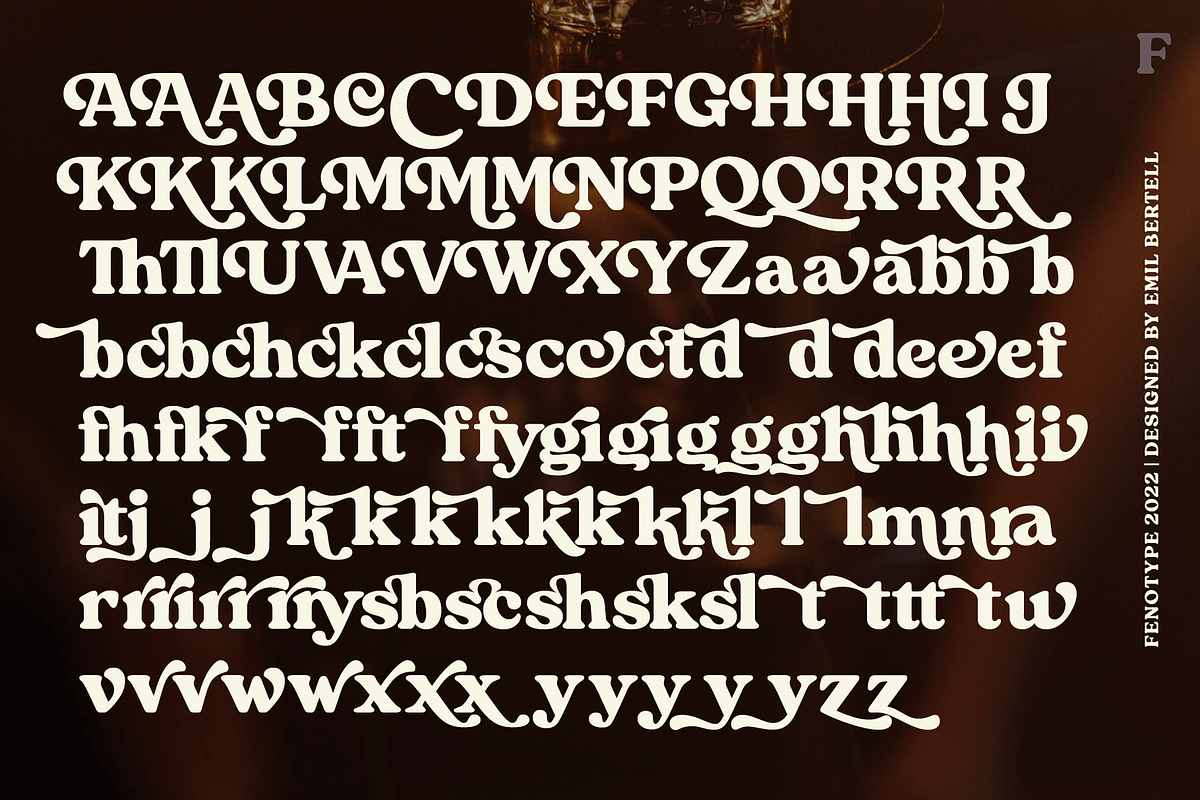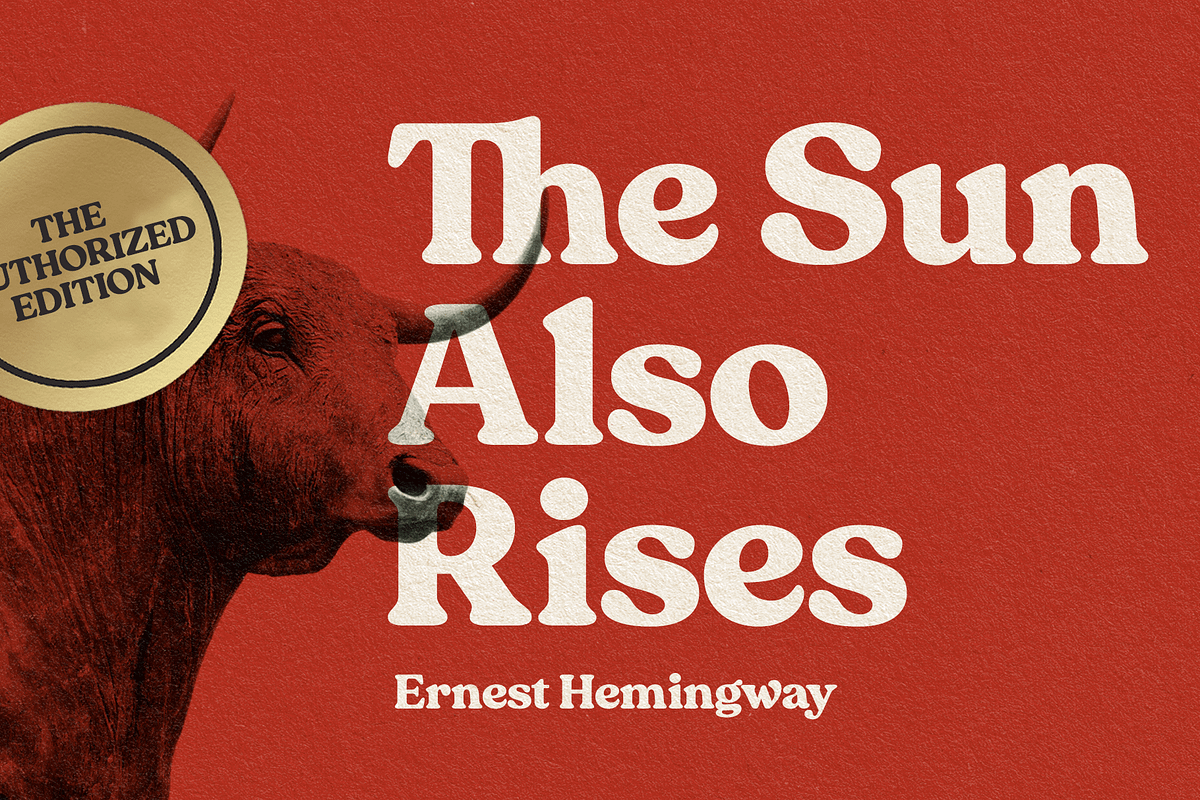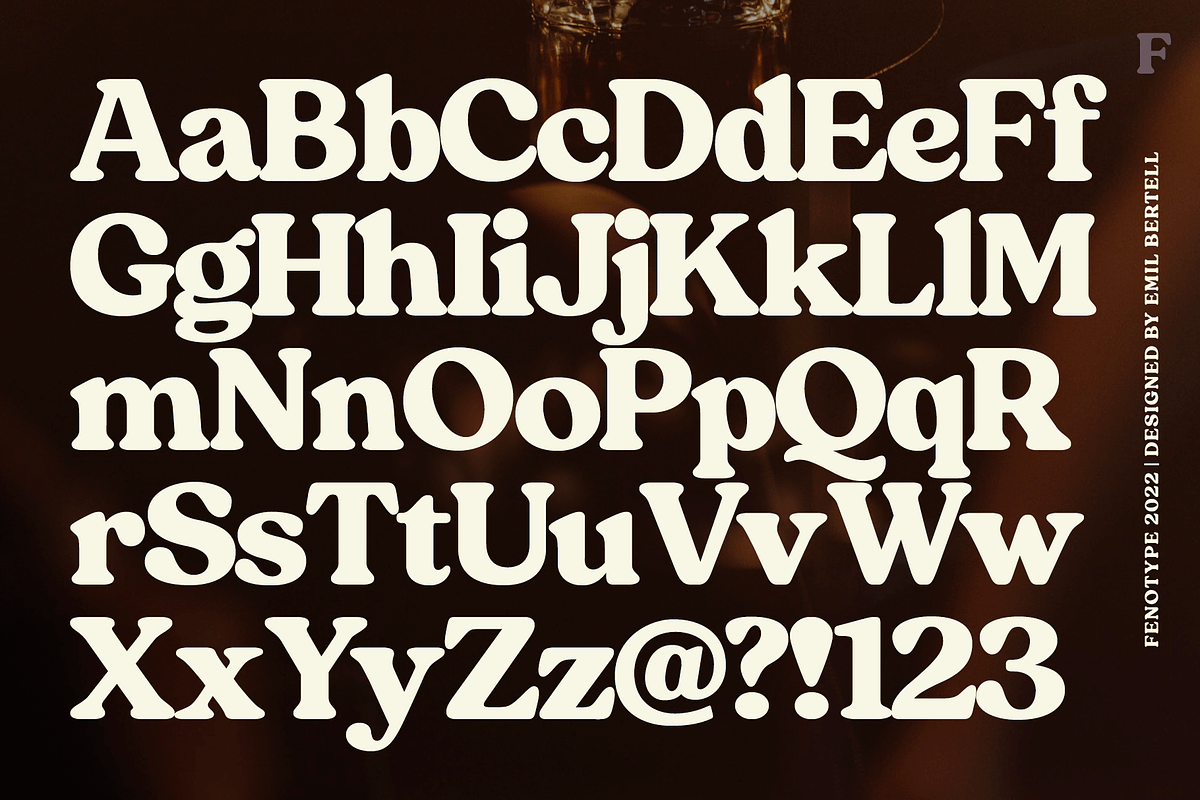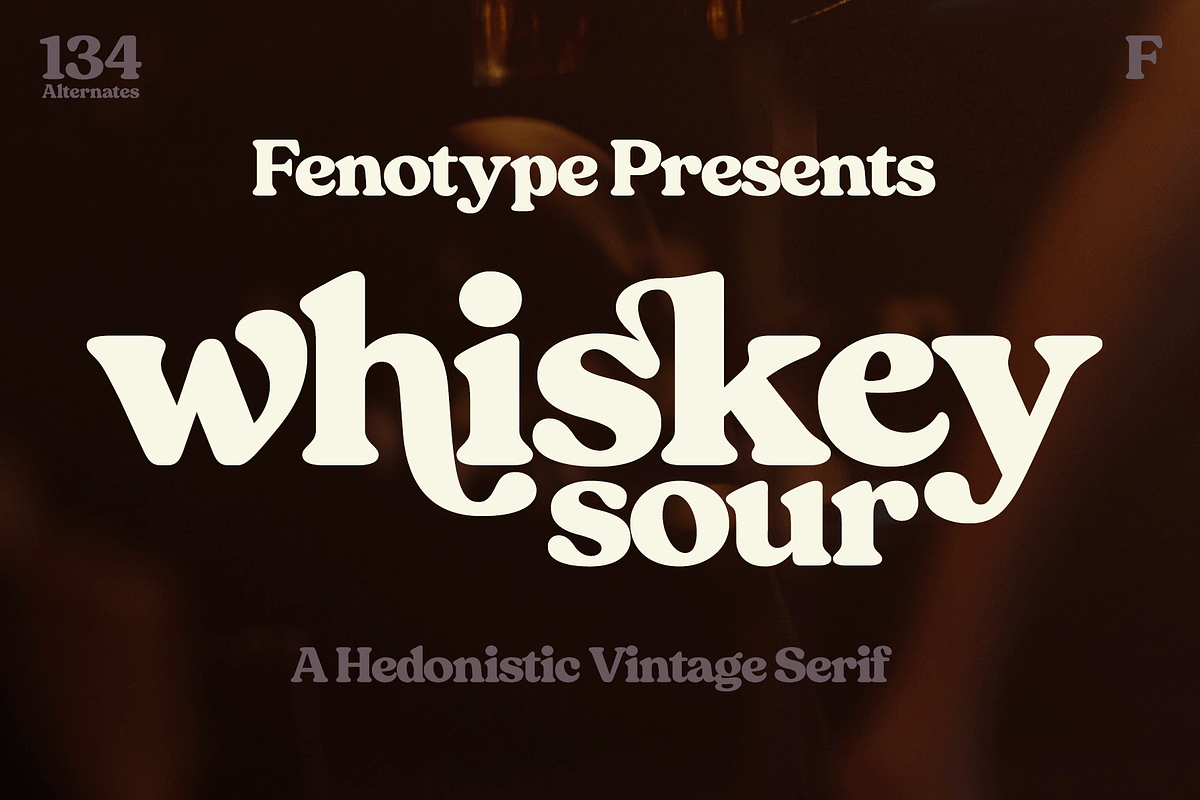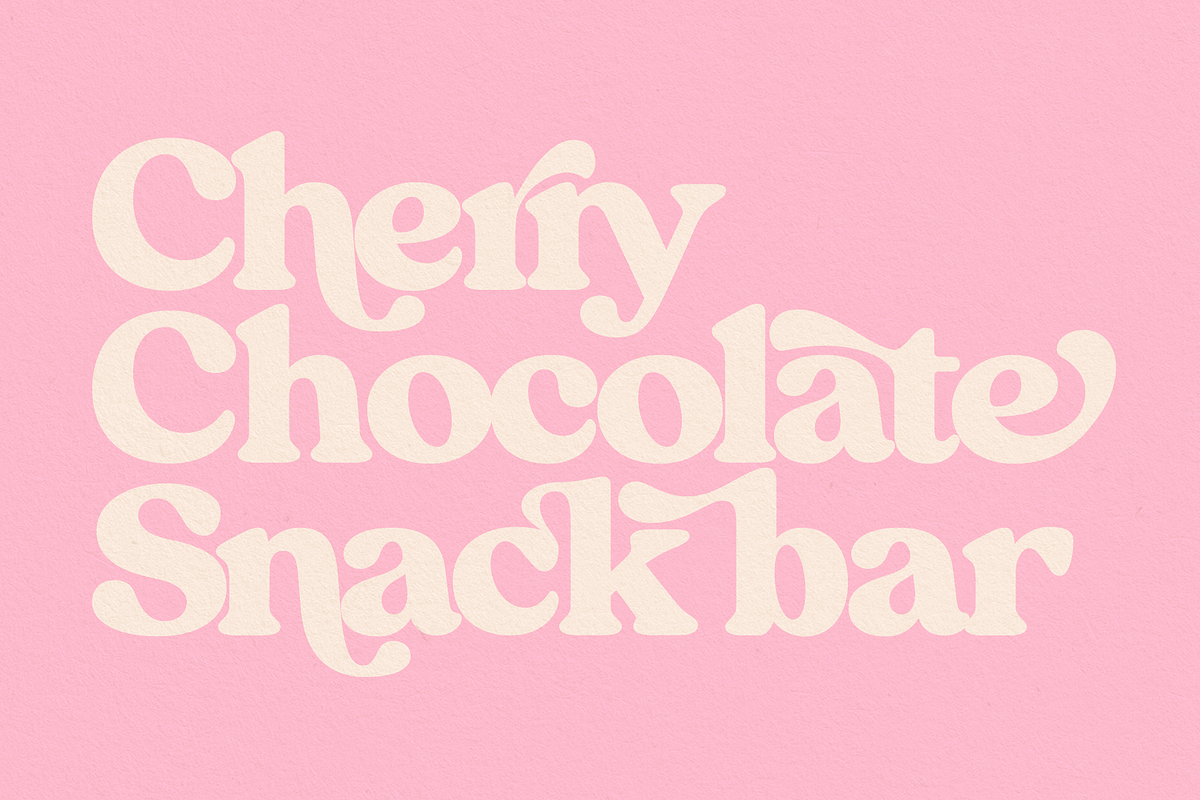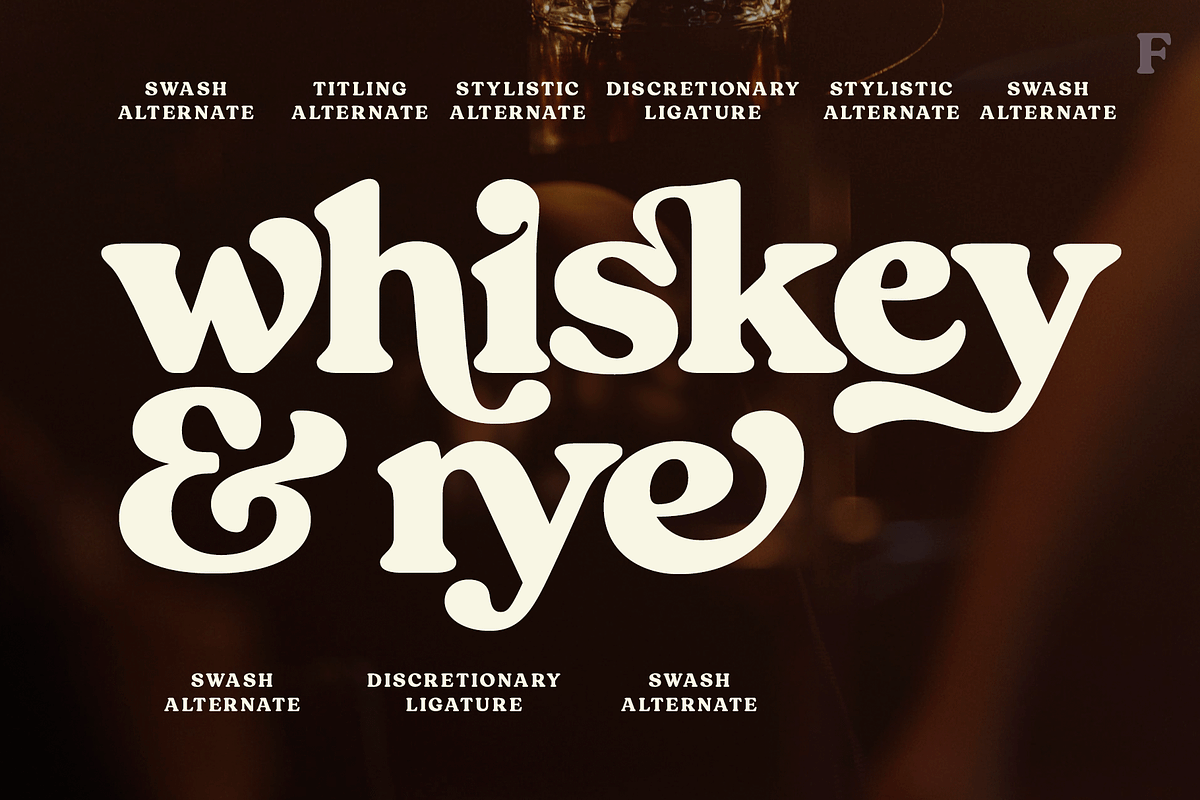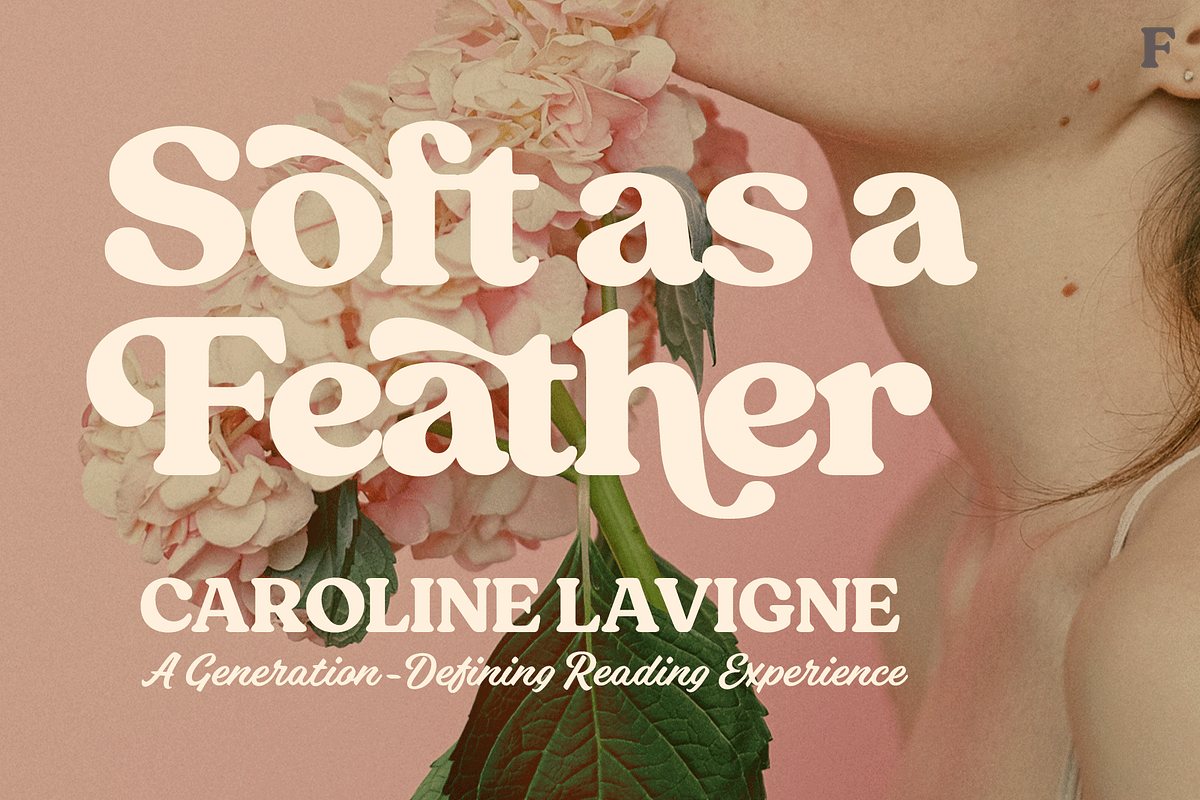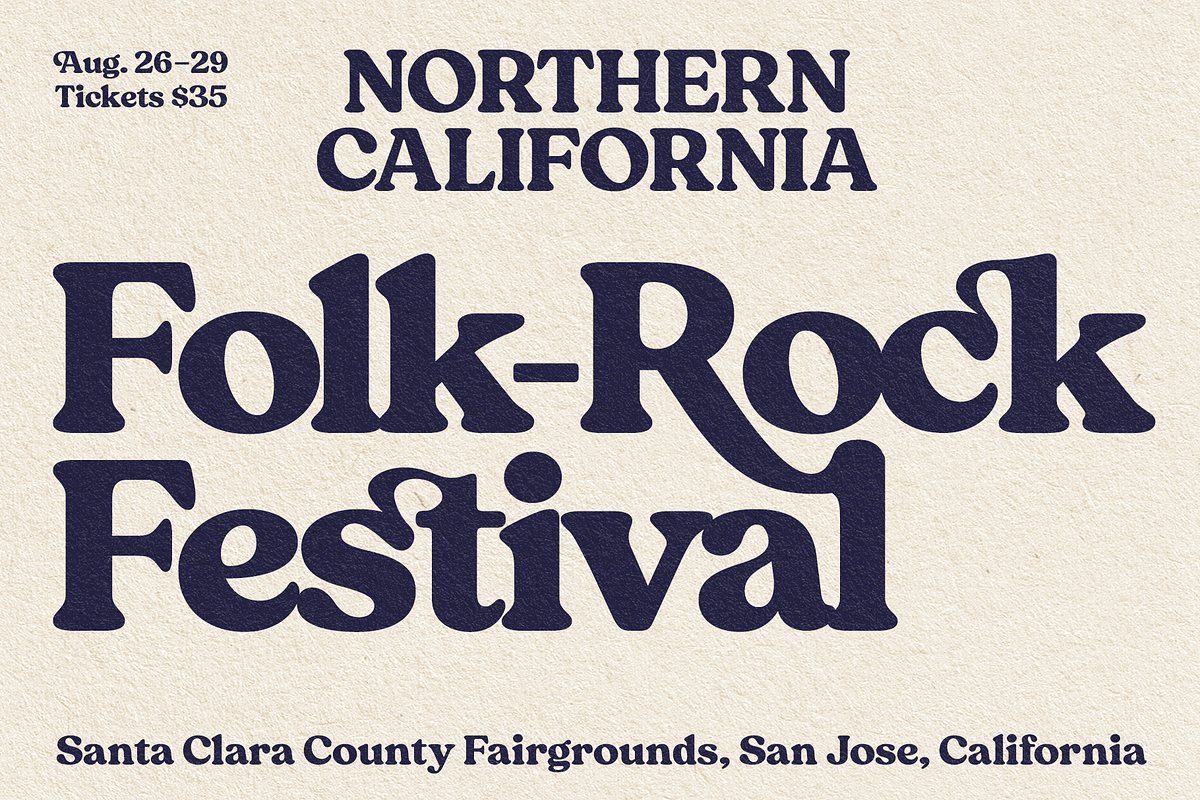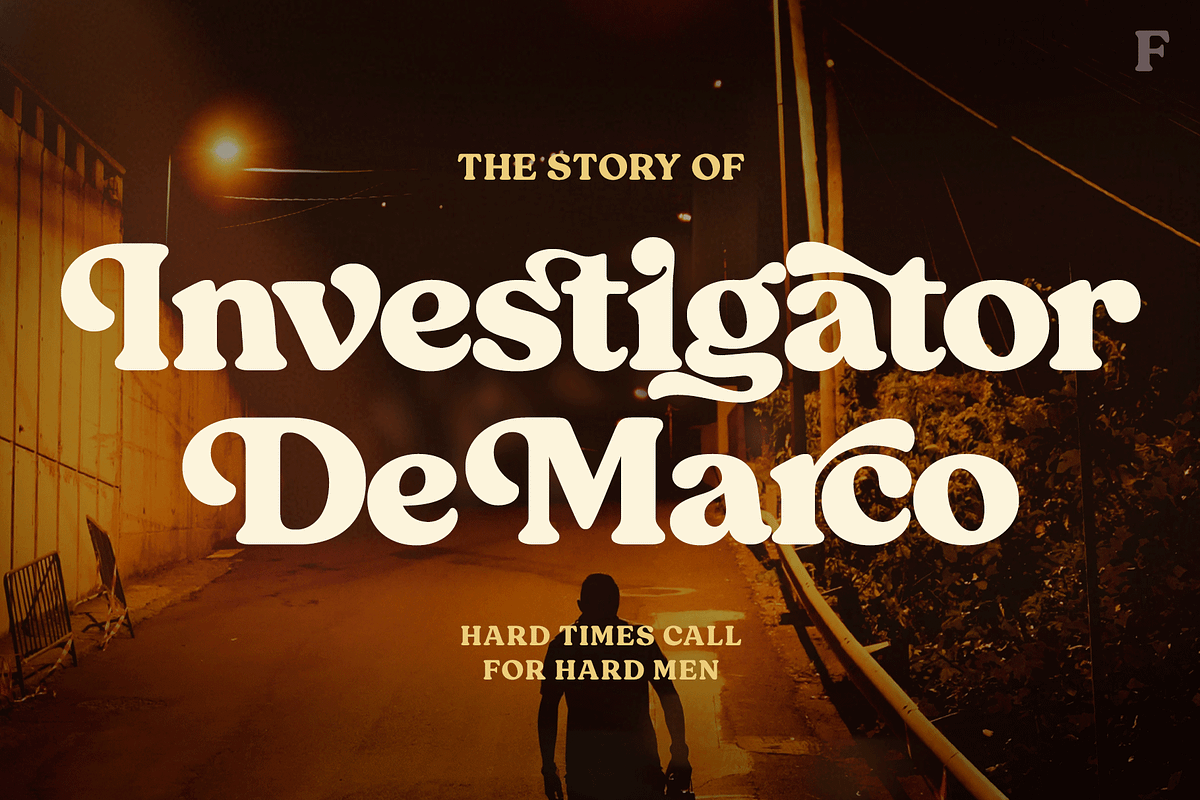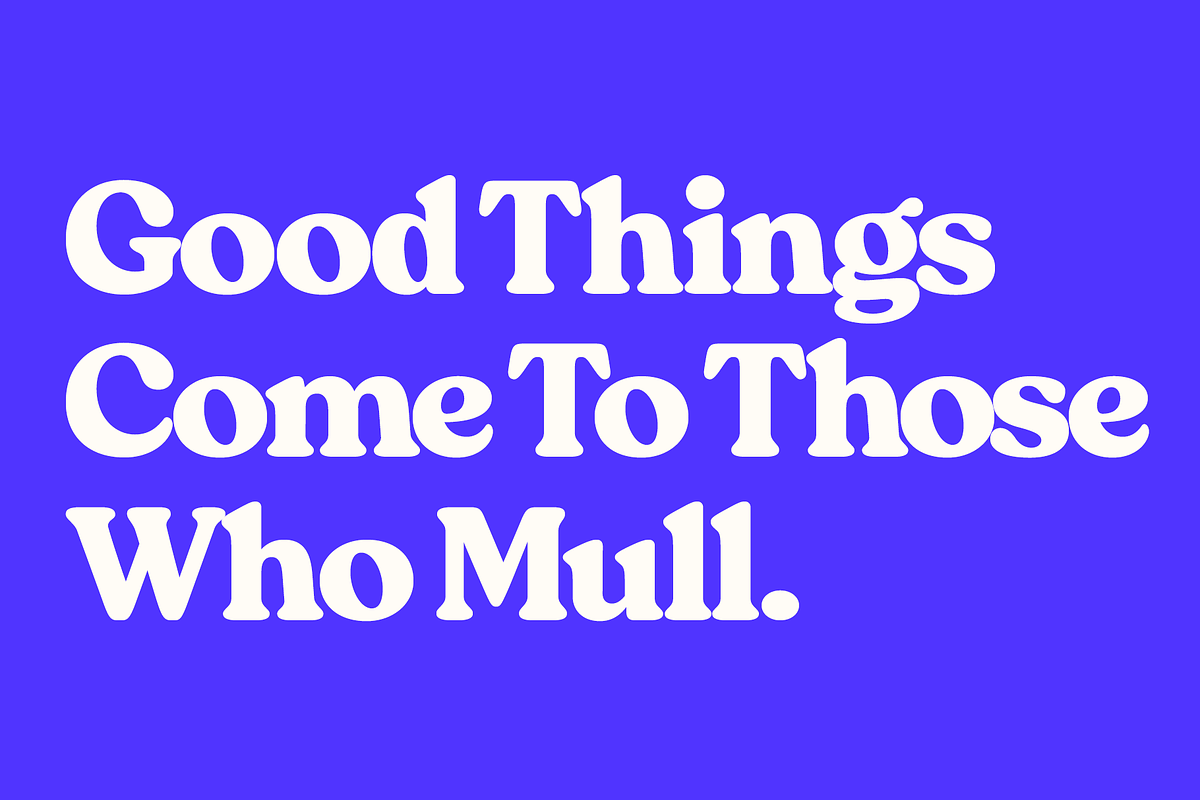
Whiskey Sour Retro Serif
Whiskey Sour, a robust vintage serif that is as delightful as it is confident. With its soft and warm aesthetic, this typeface effortlessly captures the essence of approachable confidence, making it a tasteful choice for your typographic needs. Whiskey Sour is based on Tomato Ketchup, an earlier release of Fenotype. It has larger and taller uppercase and plenty of differences in lowercase characters, the most significant ones being letters a, h, m and n. Whiskey Sour is an excellent choice for modern graphic design, offering a distinctive touch of familiarity. Whether gracing logos, packaging, restaurant graphics, or any display application, this versatile typeface shines in headlines and shorter texts. Experiment with reduced tracking for a more compact visual impact, or, when using it in small sizes, add a touch of tracking to ensure legibility. Whiskey Sour is naturally equipped with lots of OpenType features: try spicing up your designs with Swash, Stylistic, or Titling Alternates or Discretionary Ligatures. In total Whiskey Sour has 134 Alternate glyphs that can be accessed from OpenType controls or Character Window. See the full selection of Alternates in the specimen posters.